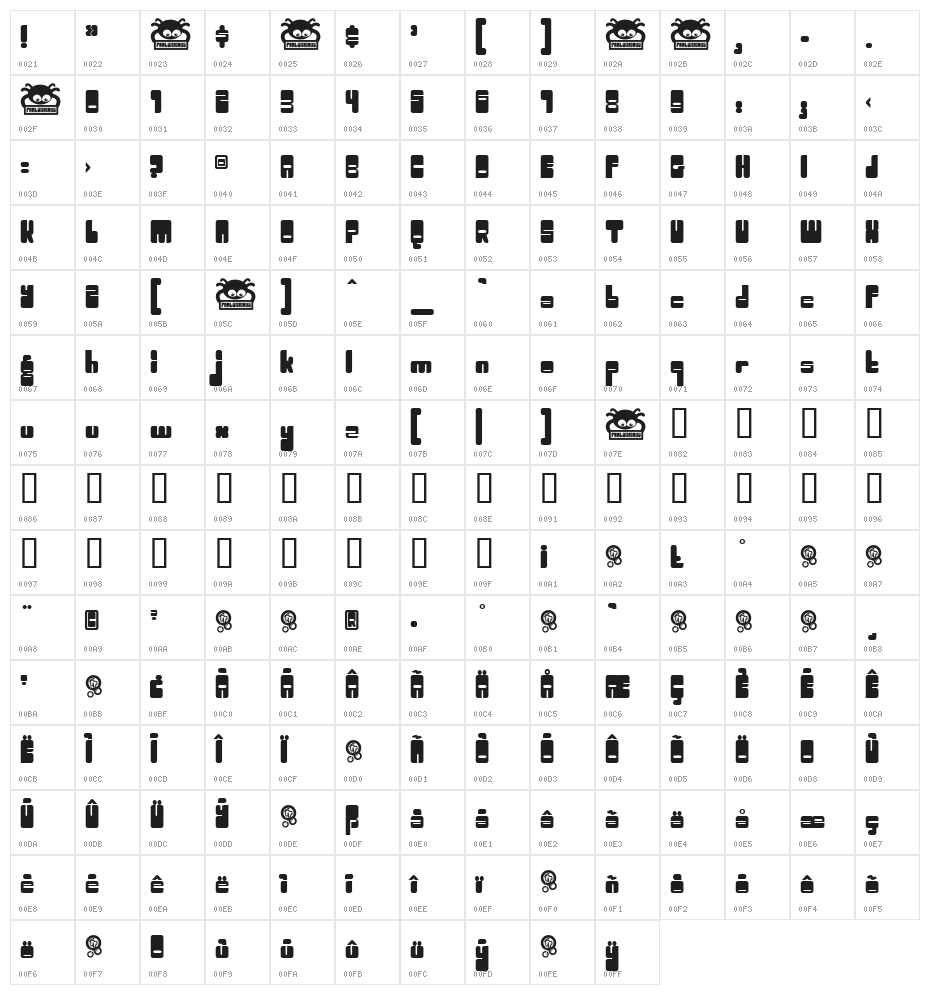
This font features a bold and playful design with rounded edges and a blocky structure. The characters are uniformly thick, giving it a strong presence. The uppercase and lowercase letters maintain a consistent style, with the lowercase being slightly more compact. Numbers and special characters follow the same bold and rounded aesthetic, ensuring a cohesive look across all glyphs. The font's unique style is accentuated by its cartoonish elements, making it stand out in any design project.
| Overall Style | Playful, Cartoonish |
| Proposed Projects | Ideal for children's books, playful branding, posters, and comic-style graphics. |